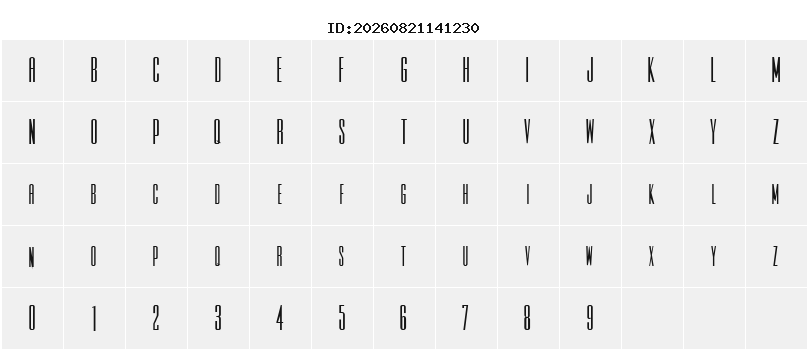
Searchlight (Twat).ttf is a modern, elegant sans-serif font designed for ultimate readability and visual harmony. Perfect for branding, headlines, web design, and print materials.